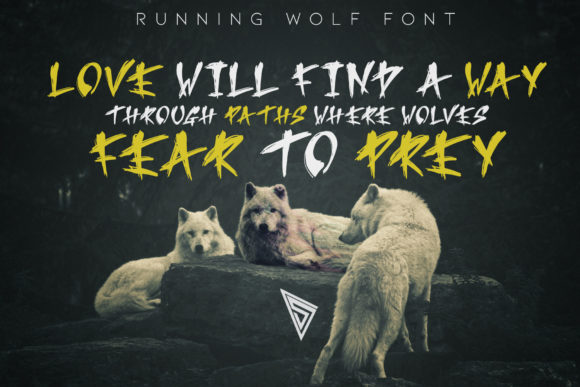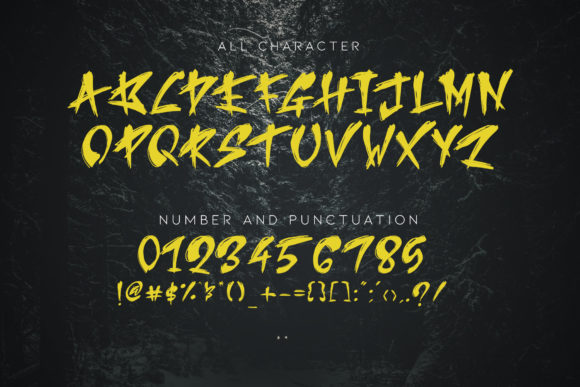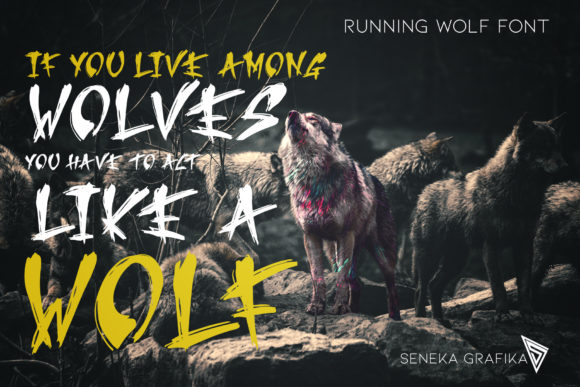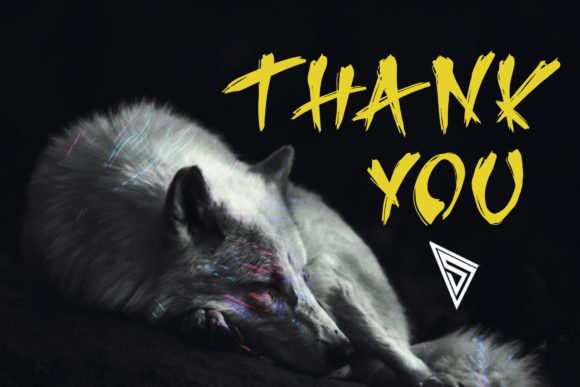
Introduction to Running Wolf Font
As a designer, have you ever found yourself stuck in a creative rut, searching for the perfect font to bring your high-quality project to life? I know I have. That’s why I’m excited to introduce you to the Running Wolf Font, a unique handwritten font that’s about to revolutionize your creative projects.
Imagine a font that’s as bold and confident as the wild animal that inspired it – the Running Wolf. This free download is perfect for designers who want to add a touch of personality to their designs, whether it’s a poster, postcard, or any other creative project that needs a little extra oomph.
Key Features of Running Wolf Font
- High-quality, bold and modern design perfect for creative projects.
- Unique design resource with a transparent background, ideal for digital art and design.
- Includes a range of styles and weights, allowing for flexibility in design projects.
- Designed with a high resolution of 300 DPI, suitable for print and digital use.
- Perfect for use in logos, branding, and other creative projects requiring a bold and modern touch.
Honest Review: Running Wolf Font
One of the standout features of the Running Wolf Font is its versatility. It can be used for a variety of projects, from logos and branding to posters and brochures. The font also comes with a transparent background, making it easy to use on top of any image or design element.
- High-quality design with a unique, bold style
- Transparent background for easy use on top of images or design elements
- Wide range of creative possibilities
- Only available in a single weight, which may limit its use in certain contexts
- No italic or bold variations available
Overall, the Running Wolf Font is a great choice for designers looking for a high-quality, unique font to add some flair to their projects. While it has some limitations, its versatility and ease of use make it a valuable addition to any design resource library.
Running Wolf Font is ideal for creative projects, such as:
- Posters
- Flyers
To get the most out of the Running Wolf Font, experiment with different font sizes, colors, and combinations with other design elements. Use the font’s transparent background to create a seamless design that pops.
Is the Running Wolf Font available in different weights and styles?
No, the Running Wolf Font is a single font with a standard weight and style. However, it does include a range of characters and glyphs to help you create a visually appealing and high-quality design for your creative project.